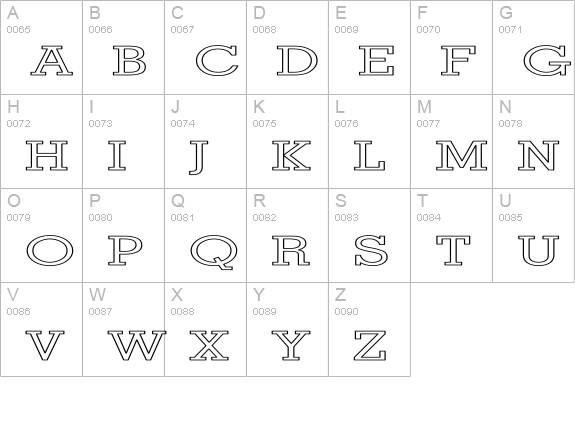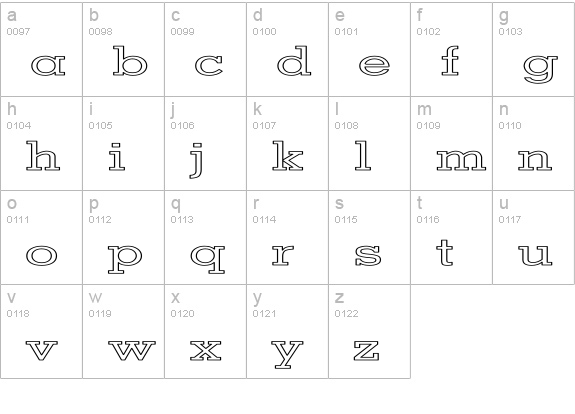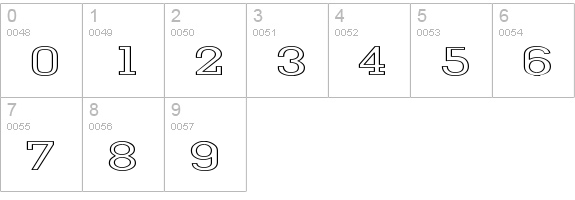
Memphis-Medium HE Font Details
Memphis-Medium HE is a balanced, medium-weight variant in the Memphis typeface family \xE2\x80\x94 well suited to sub-headlines, navigation, and balanced editorial work.
Memphis-Medium HE is a versatile and modern font that exudes sophistication and elegance. With its clean lines and balanced proportions, this font is perfect for a wide range of design projects, from branding to editorial design. The Memphis-Medium HE font strikes the perfect balance between professionalism and creativity, making it a must-have in any designer's toolkit. What sets Memphis-Medium HE apart is that it is freely available to download at FontsMarket.com. This means that you can easily access this high-quality font without any cost, making it an excellent choice for both personal and commercial projects. Whether you're looking to add a touch of class to your next design project or simply want to experiment with a new font, Memphis-Medium HE is sure to impress. Download this font today and elevate your designs to the next level.